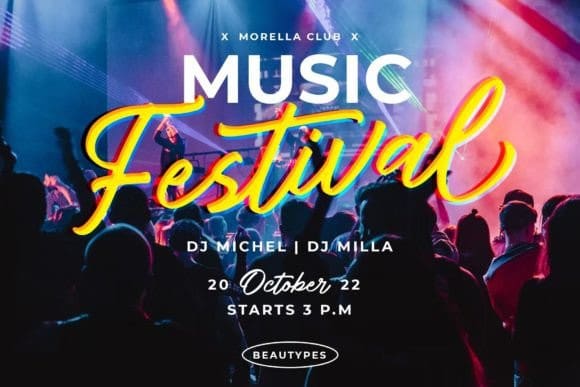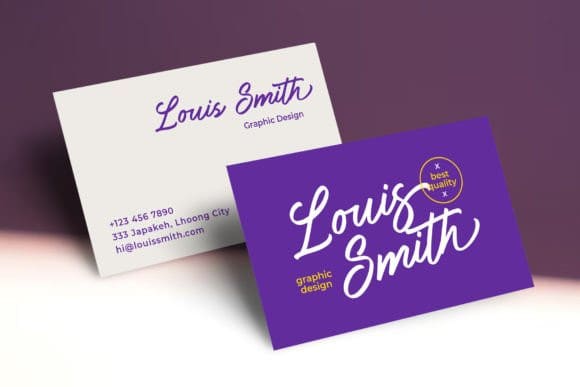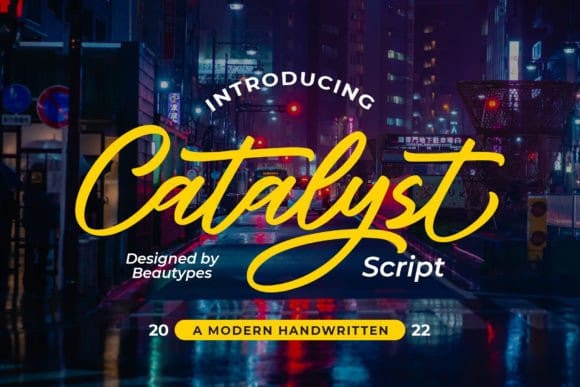
Catalyst Script Font
Catalyst Script Font is a fresh and unique font. It has an amazing handwritten look and is perfect for logos, stationery, posters, apparel, branding, advertisements, product packaging, product designs, labels, wedding invitations, and much more!